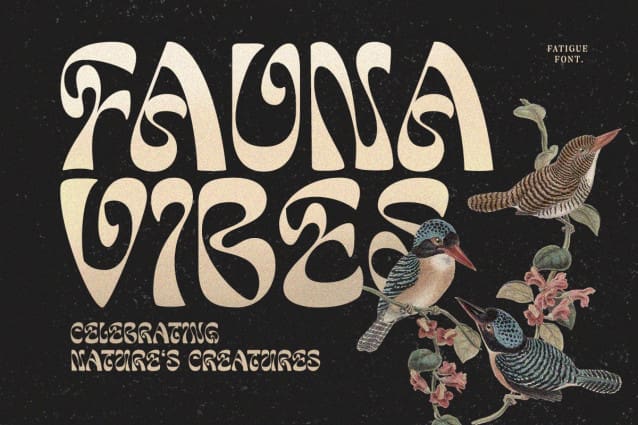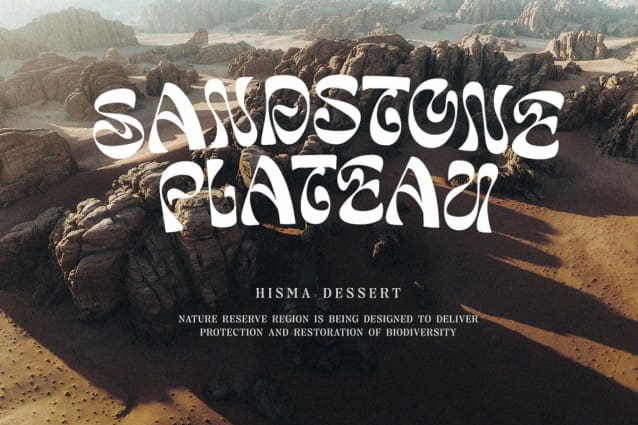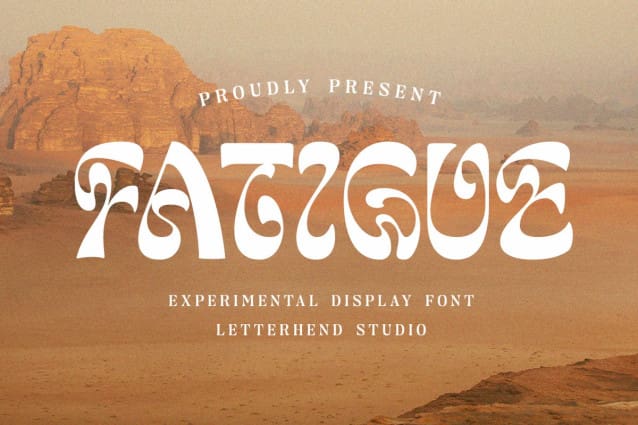
Fatigue Display Font
Fatigue Display Font. This font is designed to evoke a sense of artistic intrigue with its distinctive and imaginative curves. It’s more than just a typeface; it’s an experiential design element that adds a touch of creativity and sophistication to any project.
Whether you’re crafting eye-catching graphics or designing visually compelling layouts, Mirage Hallucination offers an attractive and engaging aesthetic that enhances your designs and captures attention. Let this font transform your work with its dynamic and expressive style.